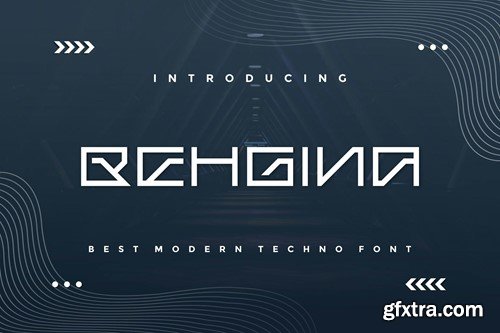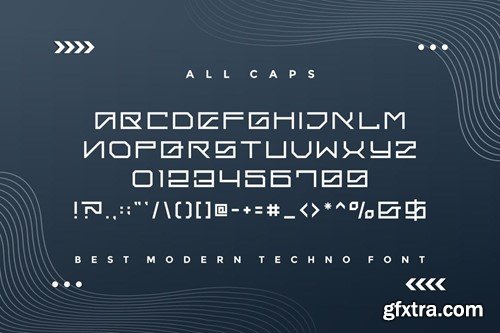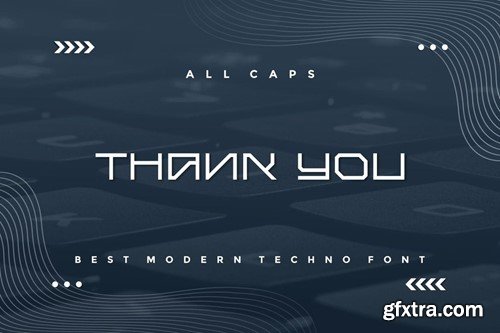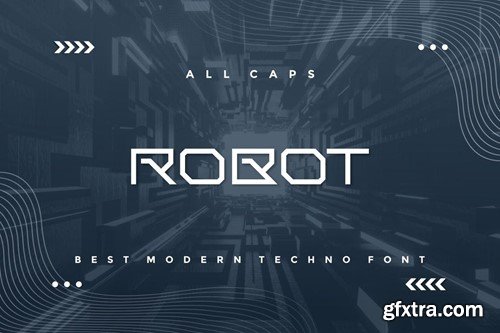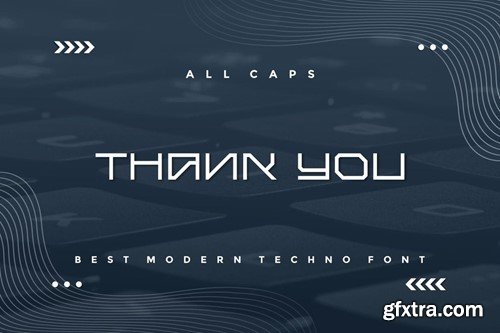
Behgina - Modern Techno Font
Introducing our new product Behgina - Modern Font Behgina is a bold, modern display font with playful flair, ideal for attention-grabbing headlines, logos, and diverse design projects. Versatile and readable in both digital and print, Behgina adds a dynamic touch to your message. availlable